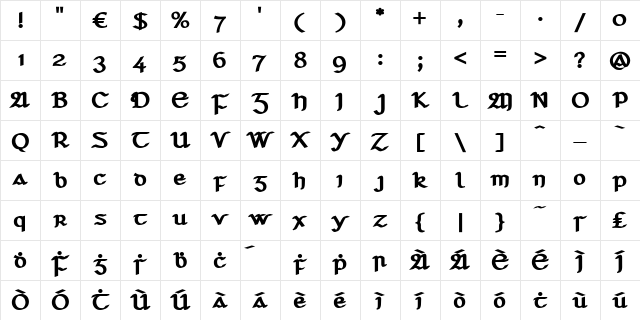
Seanchlbh Regular Free Font
Seanchlbh Regular
Design Context for Seanchlbh
Seanchlbh is a composed and adaptable typeface that performs quietly and consistently across a wide range of design contexts.